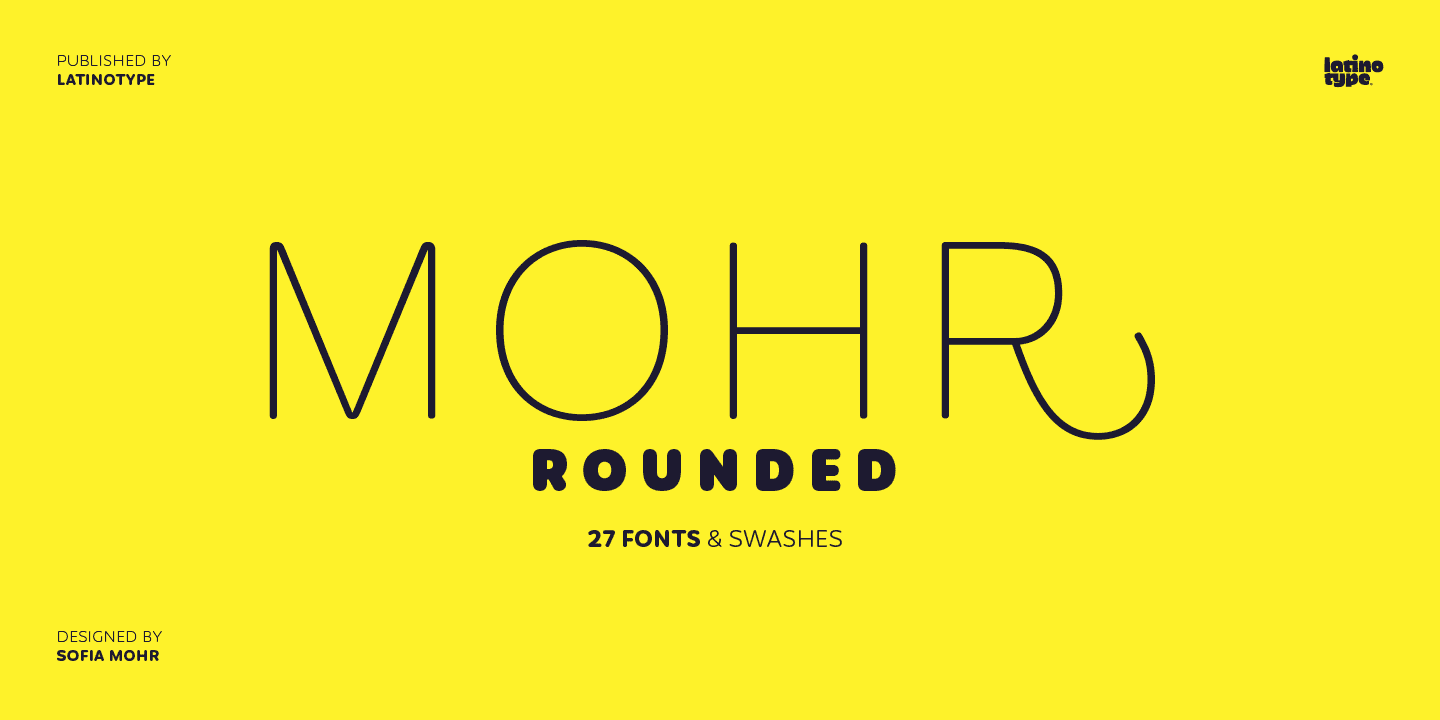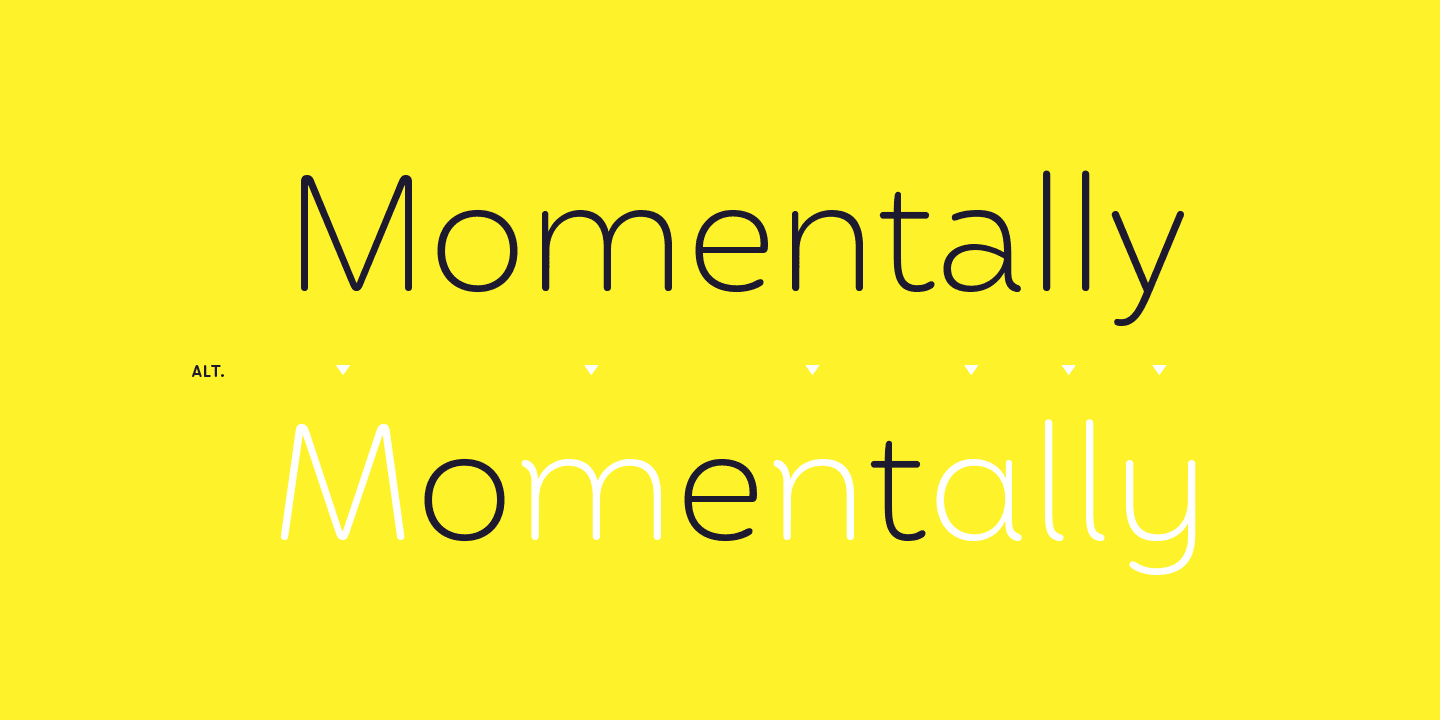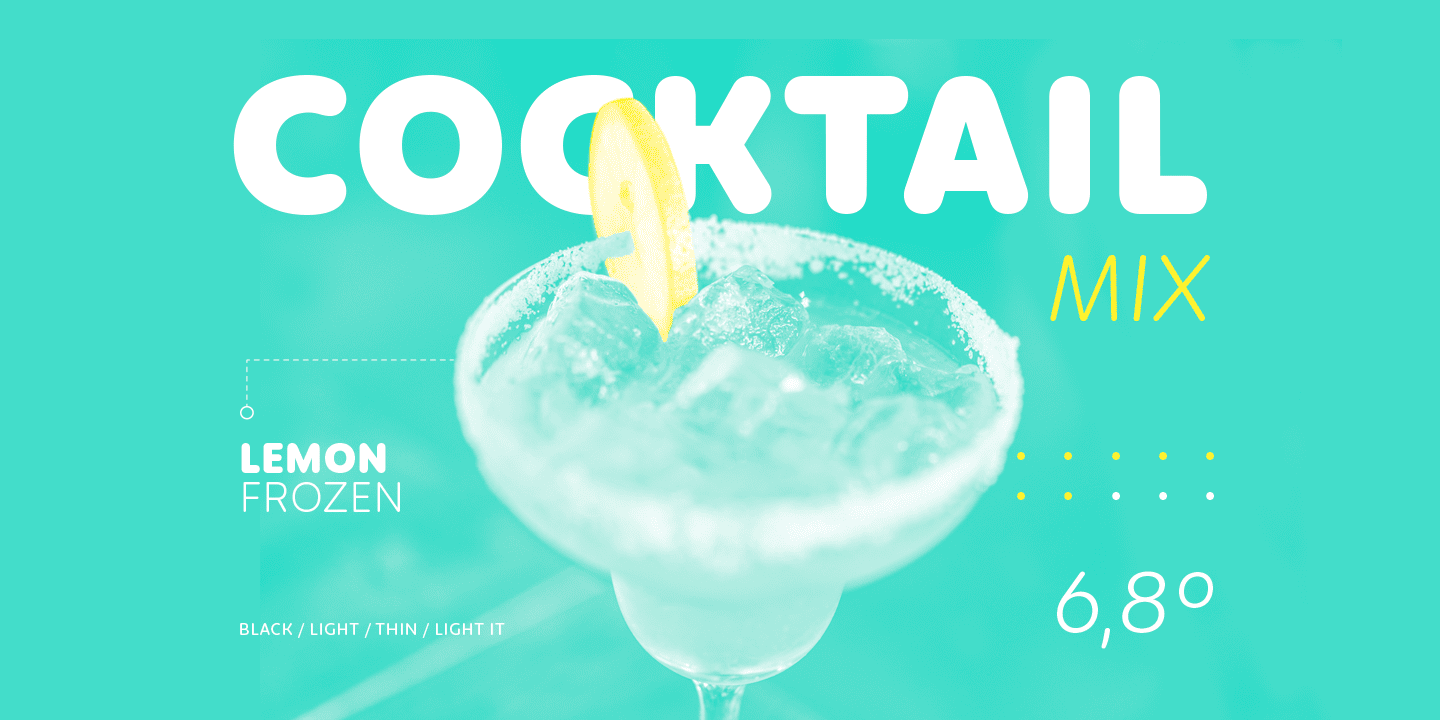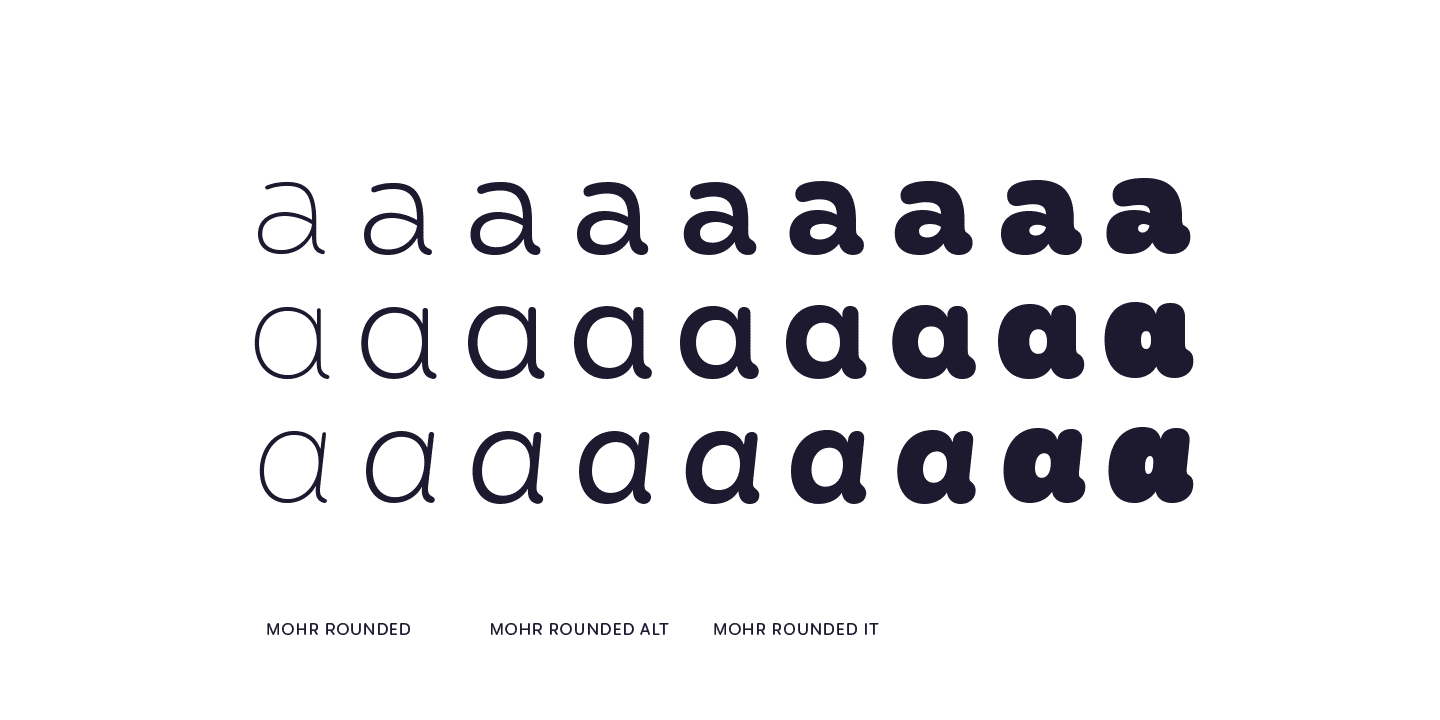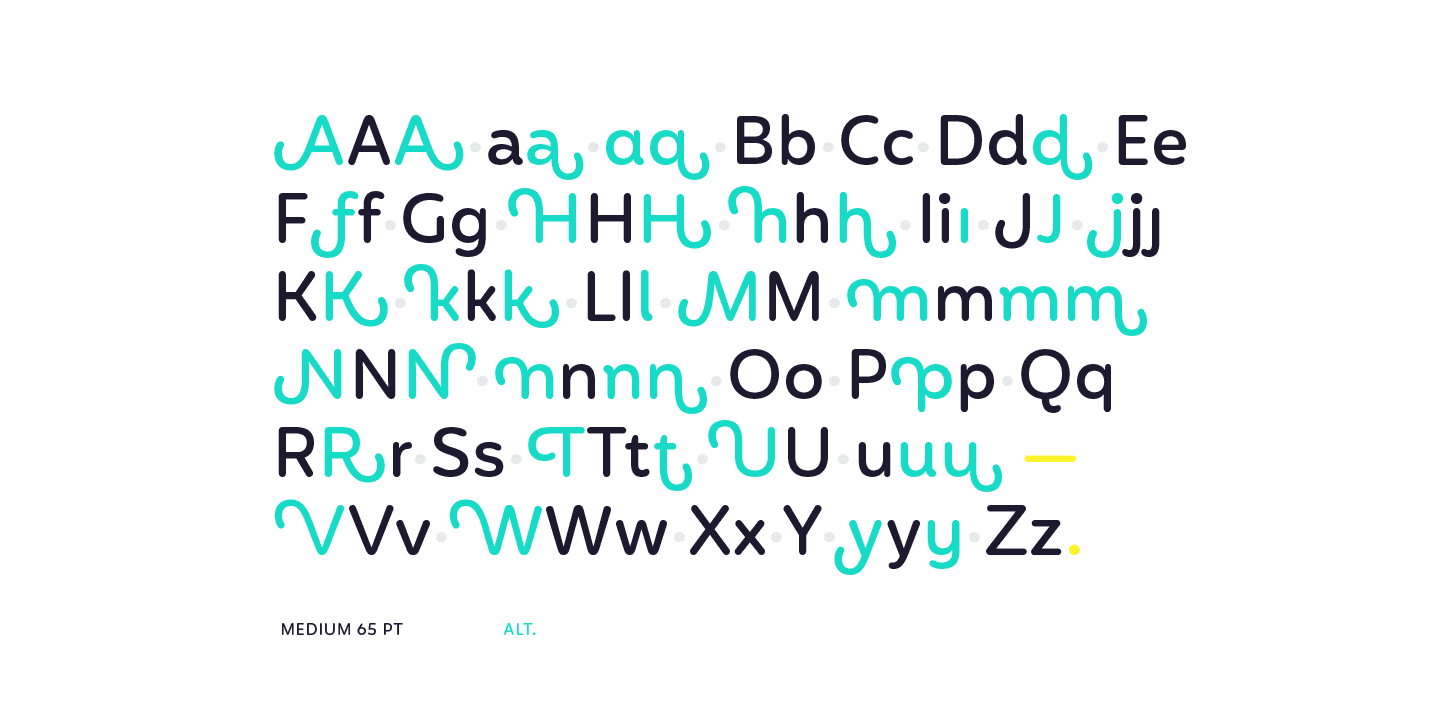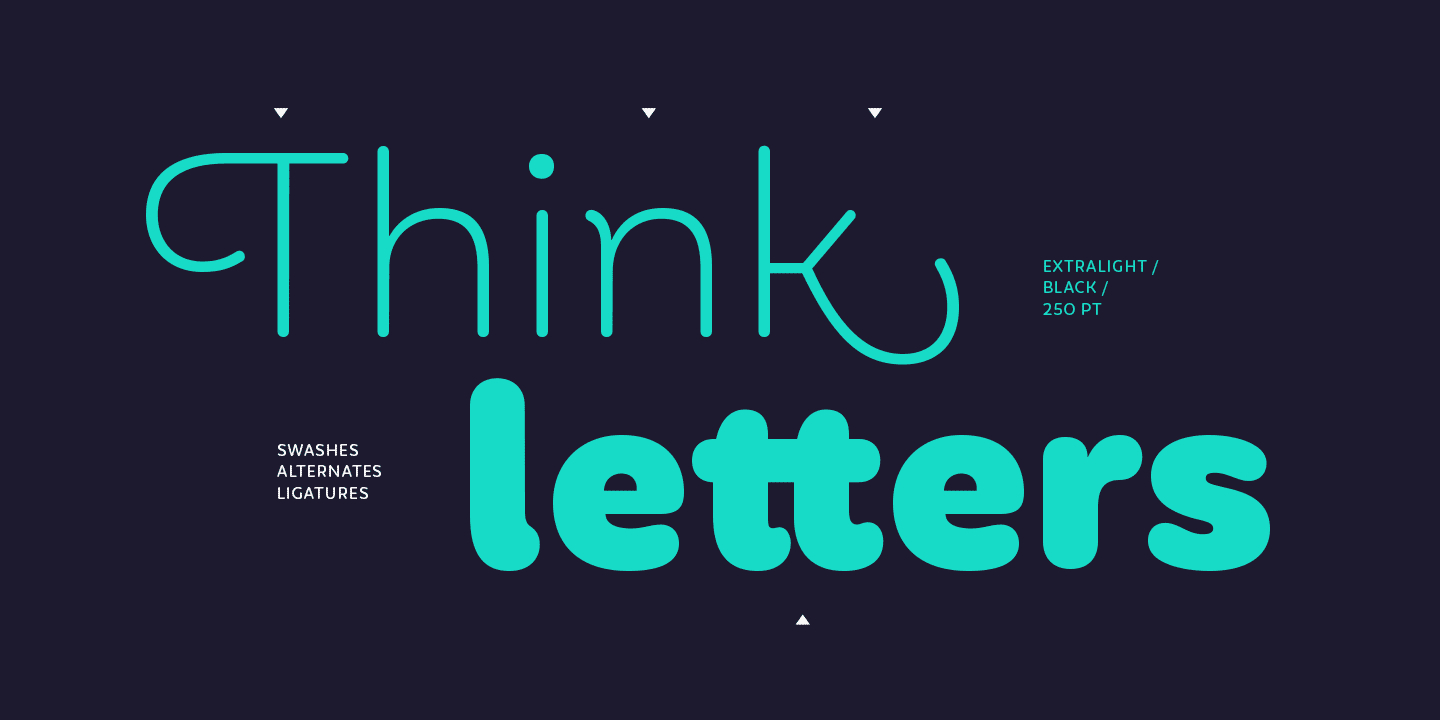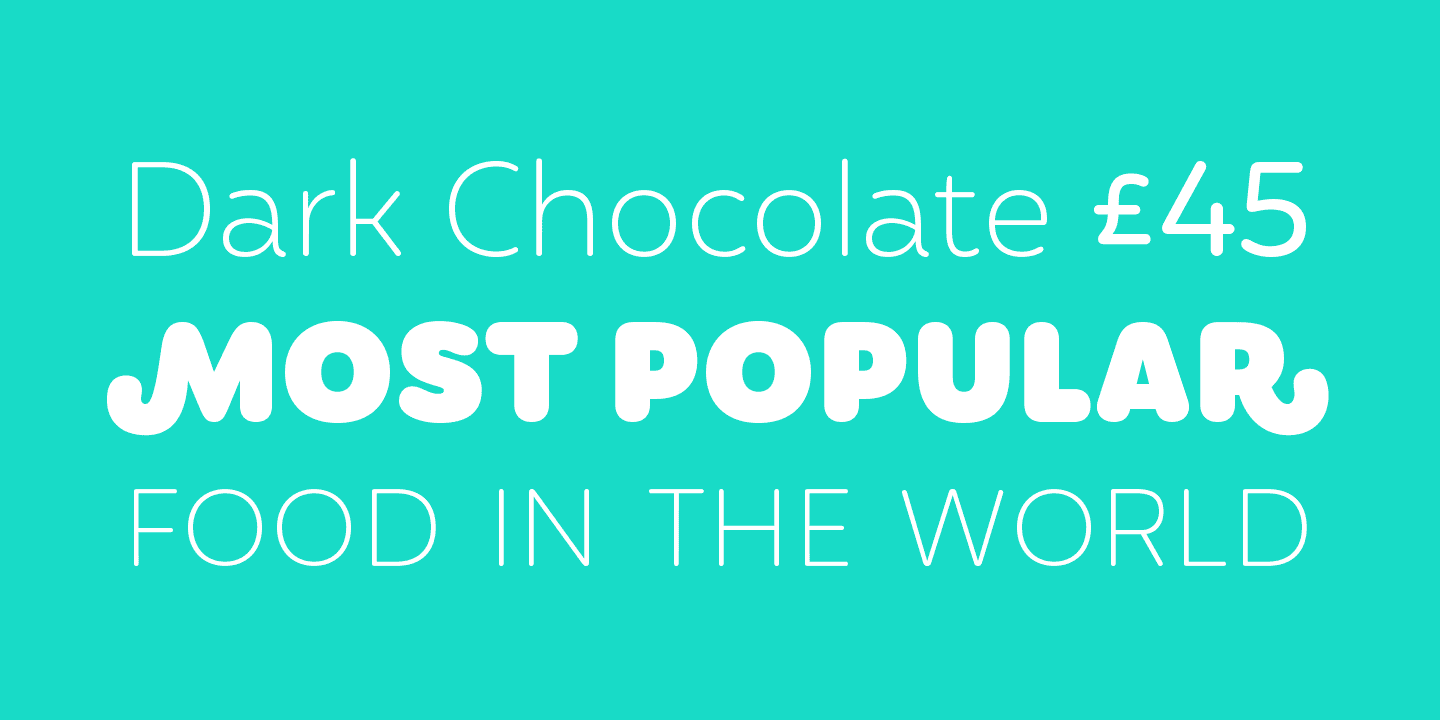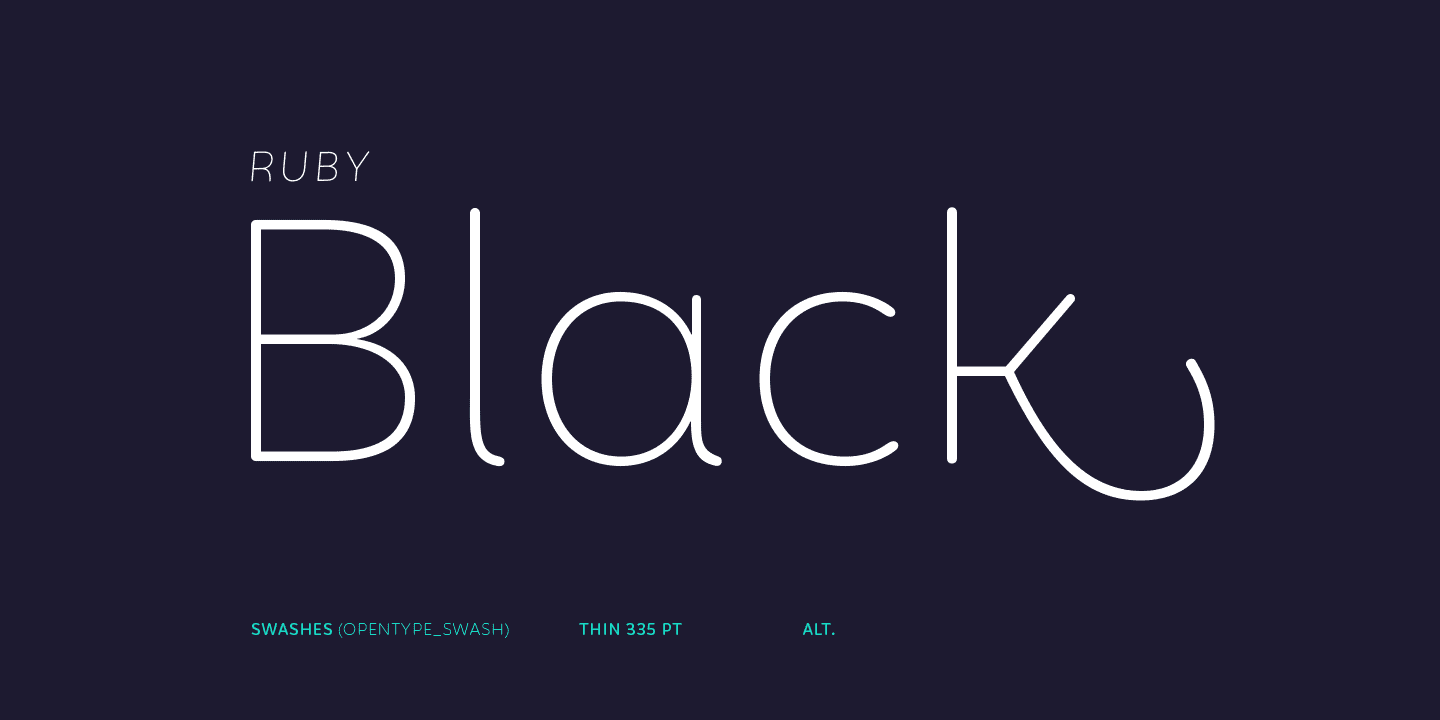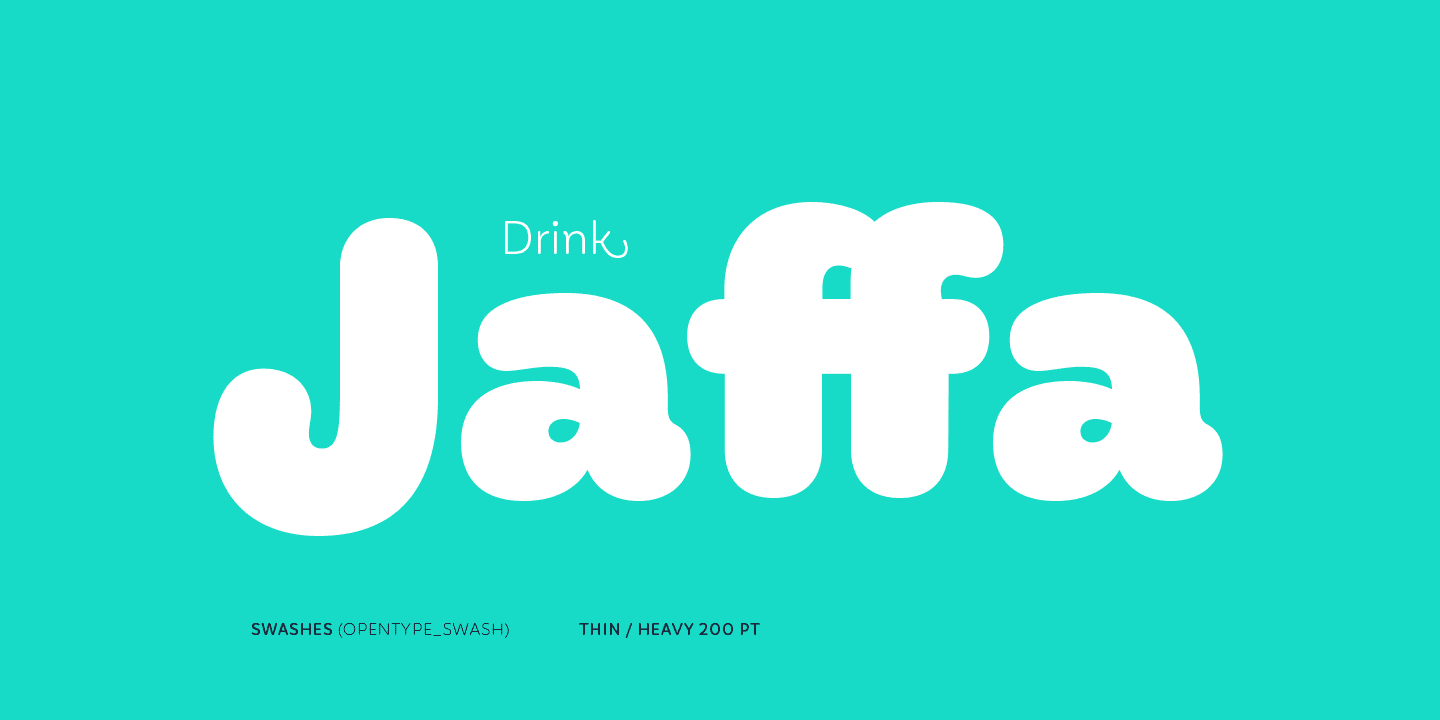
Mohr Rounded Complete Family (27 fonts)
The Mohr Rounded family comes in three versions: normal, alt and italic, each with 9 weights, from Thin to Heavy, resulting in a total of 27 styles. The versatility of the font makes it suitable for a wide range of applications, from small text to high-impact headlines.
Mohr Rounded also includes initial and terminal swashes in most of the uppercase and lowercase characters. This provides a greater range of uses such as branding, packaging and identity design.
OpenType features: Ligatures, Discretionary Ligatures, Alternates, Swash